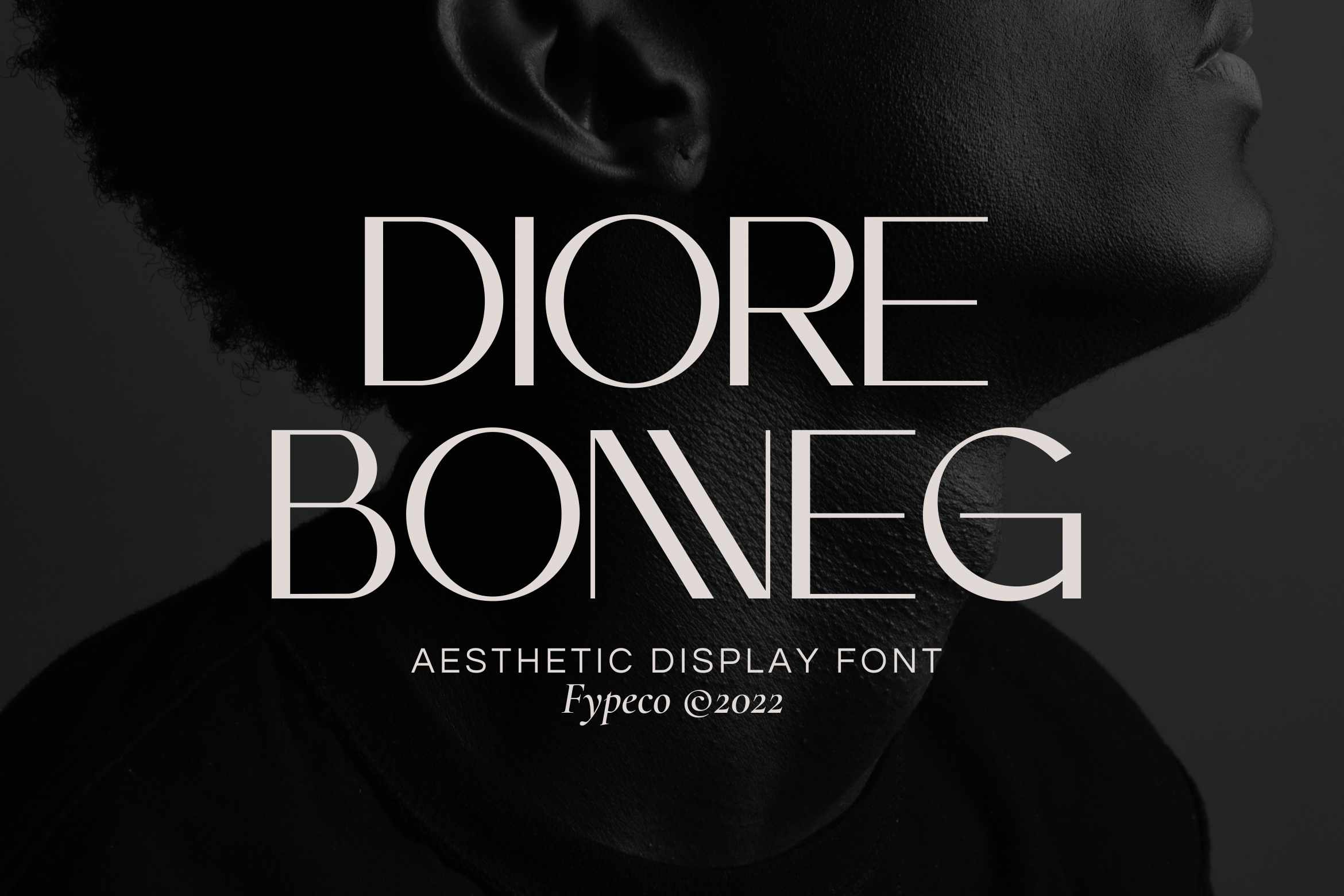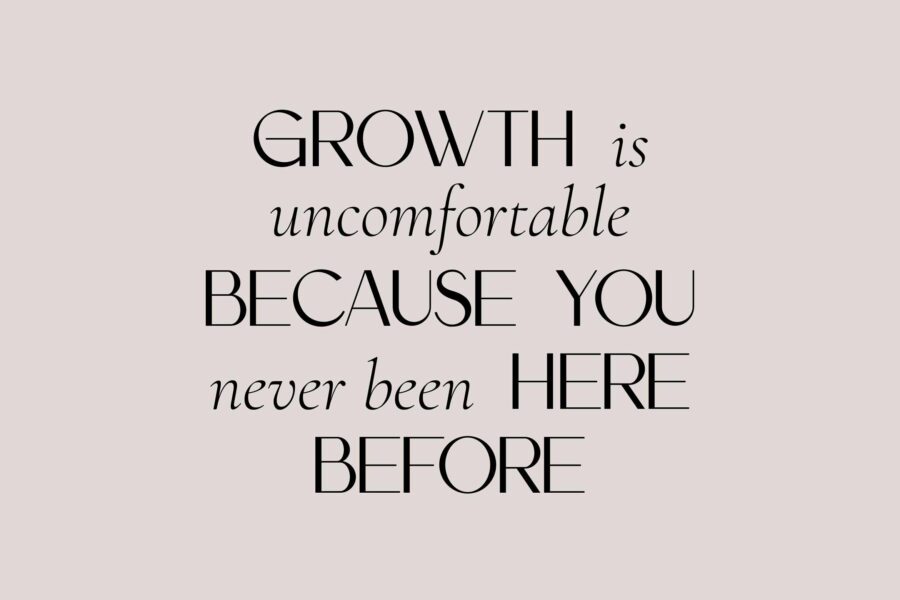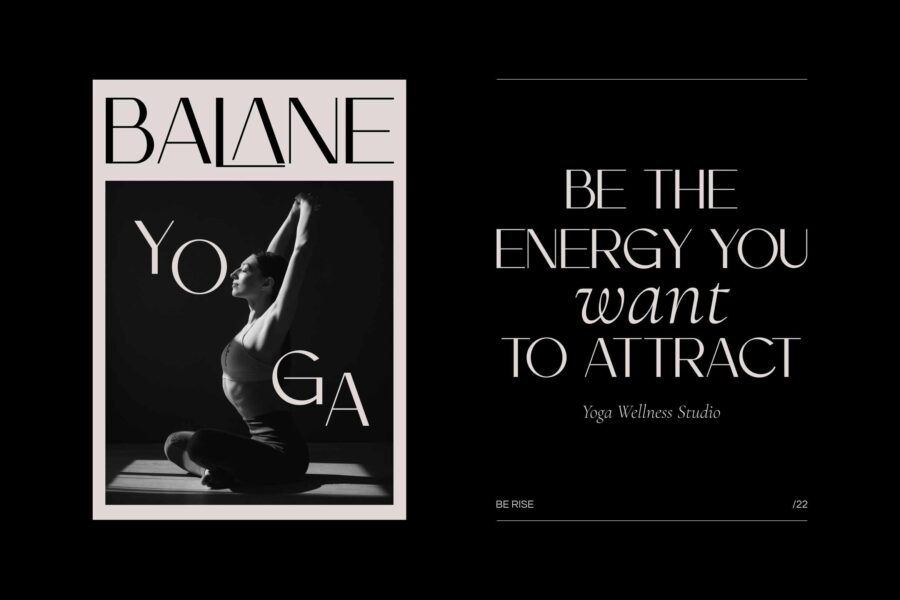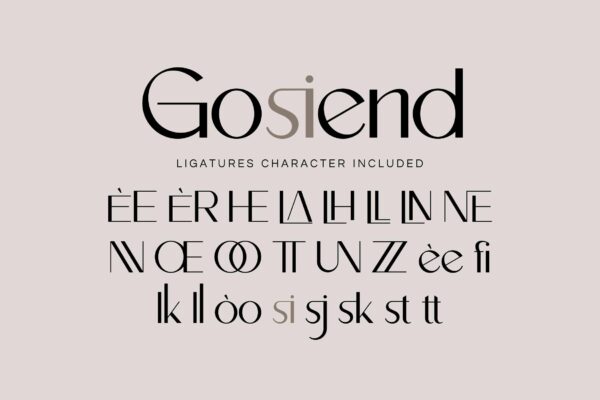
Diore Bonneg is an aesthetic display font crafted for high-end designs that demand sophistication and modern elegance. With sleek contrast, sharp geometric forms, and stylish ligatures, this font captures a balance between minimalism and luxury. It’s ideal for fashion editorials, branding, magazine layouts, cosmetics packaging, and upscale lifestyle content.
The font comes with multilingual characters, alternative ligatures, and elegant symbols to elevate your typography game. Whether you’re creating impactful headlines, refined branding assets, or bold typographic posters, Diore Bonneg adds a distinctive, artful character to your design.
Diore Bonneg